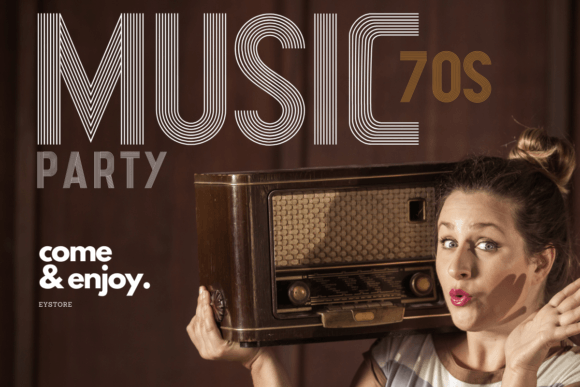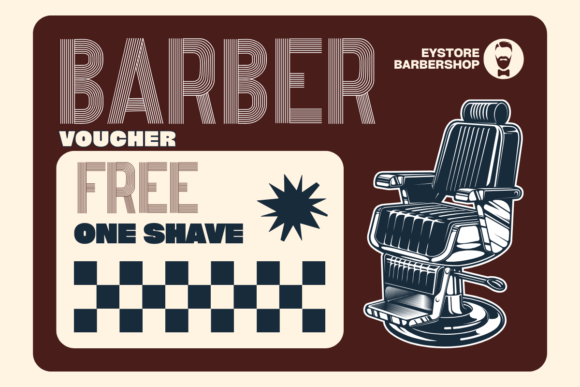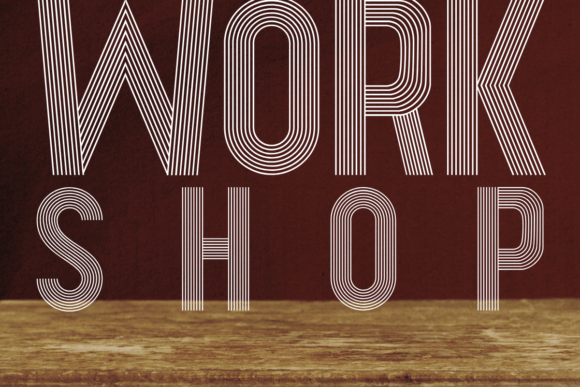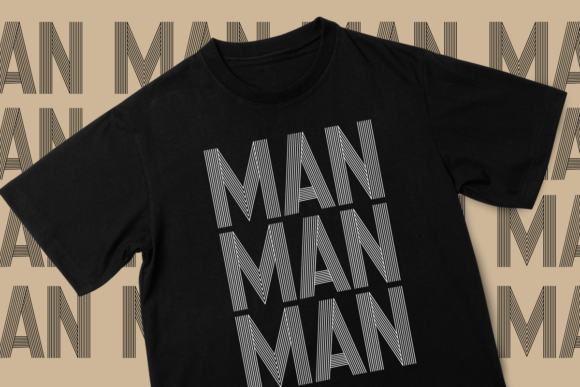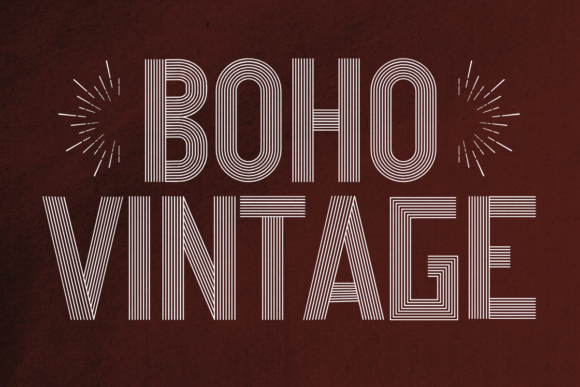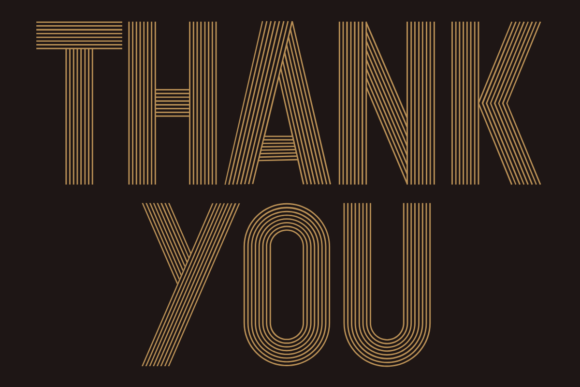
The Boho Font: A Retro-Futuristic Typeface for Modern Designs
I’ll never forget the time I was working on a project for a client who wanted a font that screamed ’70s retro-futurism. I scoured the internet, tried countless fonts, but nothing seemed quite right. That was until I stumbled upon the Boho font. It was love at first sight! ✨ The perfect blend of nostalgic vibes and futuristic flair, Boho has since become one of my go-to fonts for modern designs.
An Honest Review of Boho Font
- ✨ Unique multiline display design that adds depth to any project
- ✅ Futuristic touch that’s perfect for modern and contemporary styles
- 🔥 Fun graphics and nostalgic vibe that’s reminiscent of the ’70s
- 💻 Highly versatile and can be used for a wide range of projects, from headlines to merchandise
While Boho font is an amazing addition to any design project, there are a few things to keep in mind 🤔:
- ⚠️ Limited use for body text due to its display font nature
- ⚠️ May not be suitable for very small font sizes due to intricate design
- Experiment with OpenType features and glyphs to add more personality to your text
The Backstory of Boho Font
Boho font was inspired by the iconic design of the 1970s, with its futuristic and playful vibe 🌟. The designer, who wishes to remain anonymous, was fascinated by the era’s retro-futuristic aesthetic and sought to create a font that captured its essence. The result is Boho, a multiline display font that’s perfect for modern designs and contemporary styles.
Q: What type of projects is Boho font best suited for?
A: Boho font is ideal for headlines, posters, packaging, merchandise, quotes, t-shirt typography, banners, product labels, and more 📦
Q: Can I use Boho font for body text?
A: While Boho font is technically possible to use for body text, it’s not recommended due to its display font nature and intricate design 📄
Q: Is Boho font available in different weights or styles?
A: Boho font comes in a single weight, but its OpenType features and glyphs offer a range of stylistic alternates to experiment with 🎨